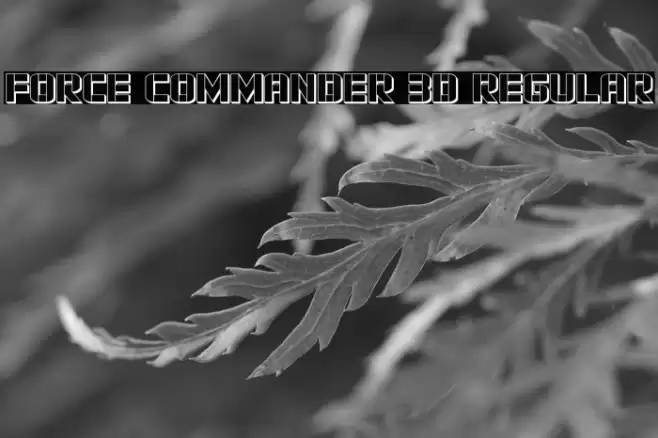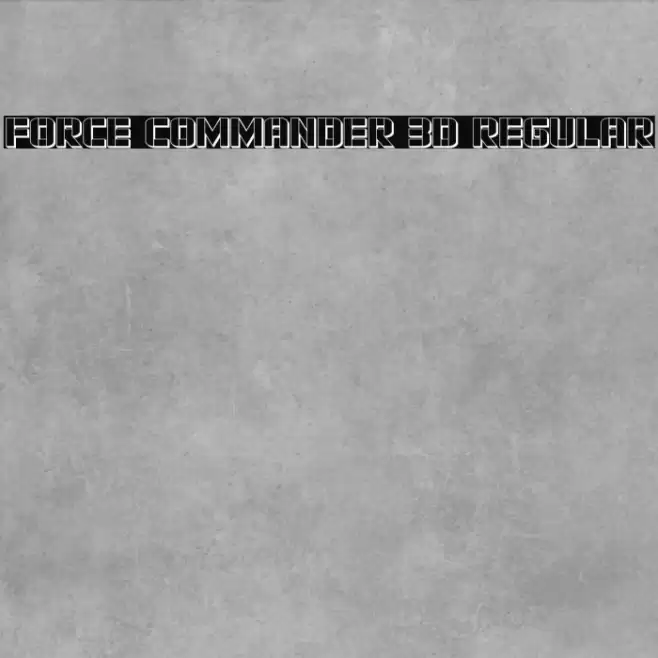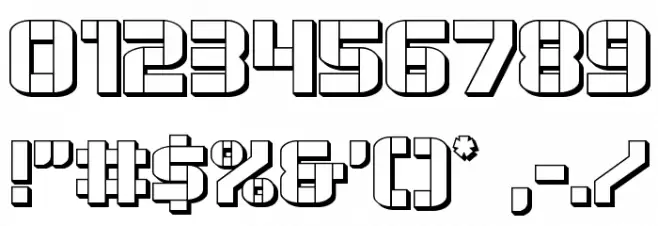
Force Commander 3D Regular Font
Force Commander 3D Regular Description
This font features a bold, three-dimensional design that gives each character a distinct, futuristic appearance. The letters are constructed with a blocky, geometric style, incorporating sharp angles and clean lines. The 3D effect is achieved through the use of shadowing and outlines, creating a sense of depth and dimension. This font is highly stylized, making it ideal for attention-grabbing headlines or logos. The uppercase and lowercase letters maintain a consistent design, and the numerals and special characters are crafted with the same attention to detail, ensuring uniformity across all text elements.
A bold, 3D geometric font with a futuristic style from Uncategorized fonts.
- Proposed Projects: Ideal for sci-fi themed projects, video game titles, tech company logos, or any design requiring a modern, standout typeface.
- Overall Style: Futuristic, Modern